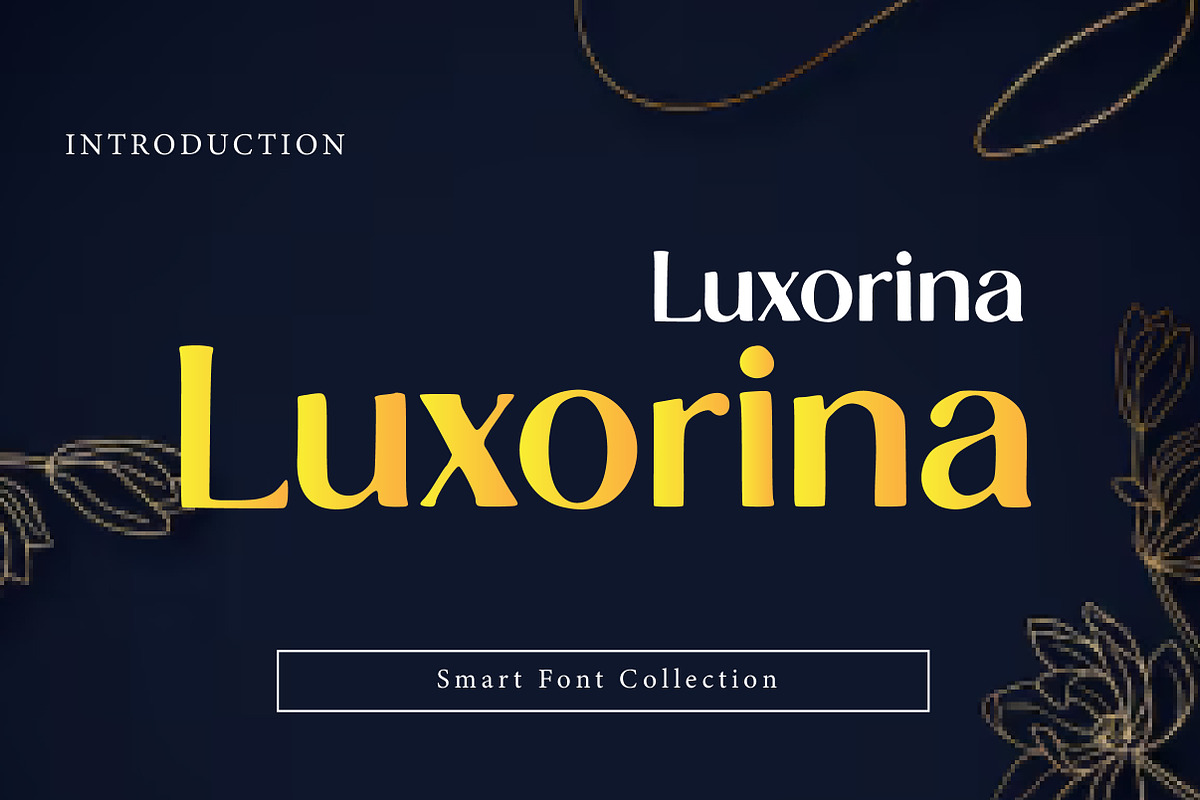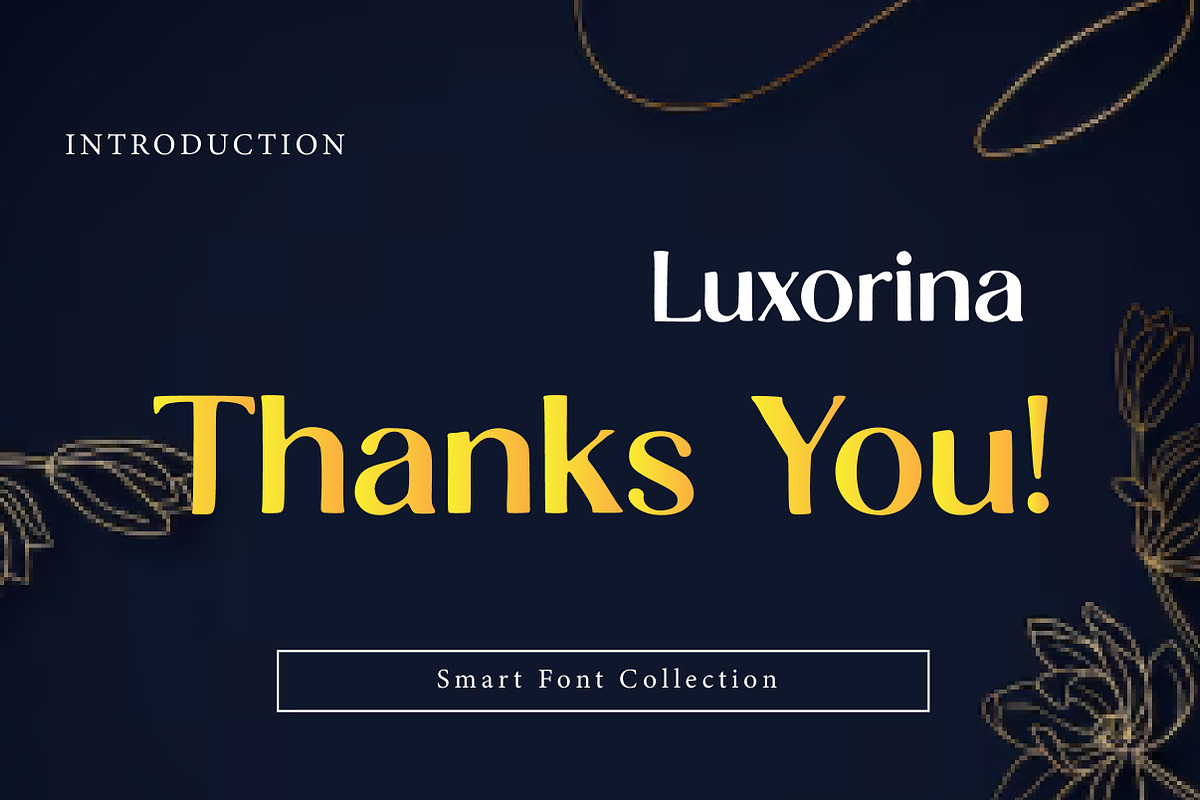
Luxorina
Luxorina is a modern, elegant, and stylish serif display font designed to bring a premium and sophisticated touch to your typography. With its smooth curves, balanced proportions, and refined serif details, this typeface is perfect for high-end branding, editorial layouts, and luxury design projects.
Created with a clean yet classy aesthetic, Luxorina works beautifully for fashion logos, beauty branding, magazine titles, wedding invitations, product packaging, boutique labels, and premium advertisements. Its letterforms feel timeless and elegant, while still maintaining a modern look that fits today’s design trends.
Whether you are building a luxury brand identity, designing a modern editorial headline, or creating a minimalist logo, Luxorina adds an upscale and professional feel to your work. It performs best in large display sizes where the serif details shine clearly and elevate the design instantly.